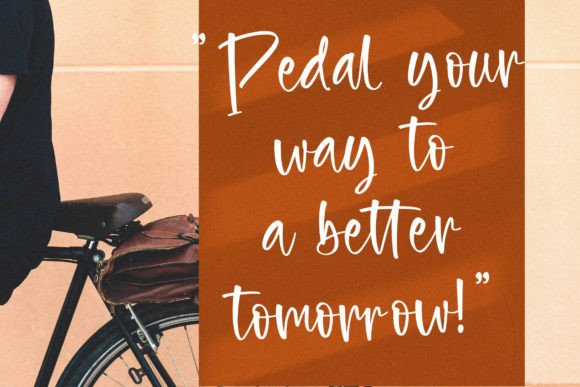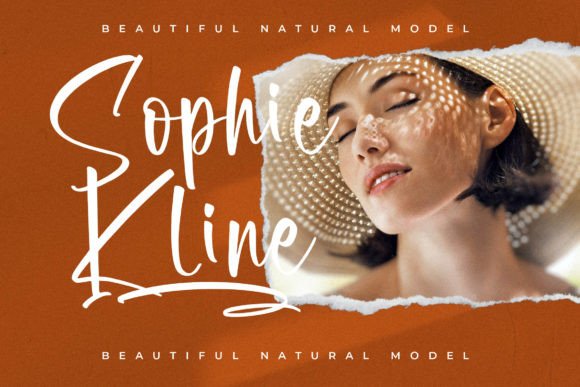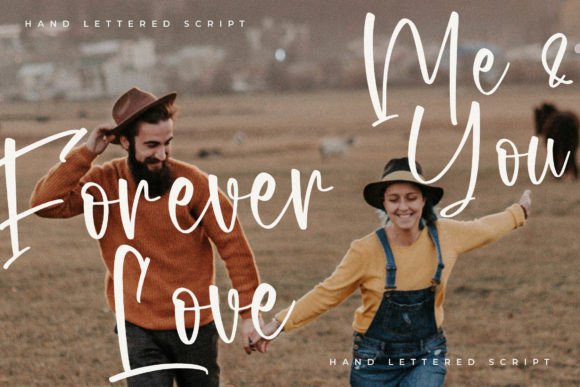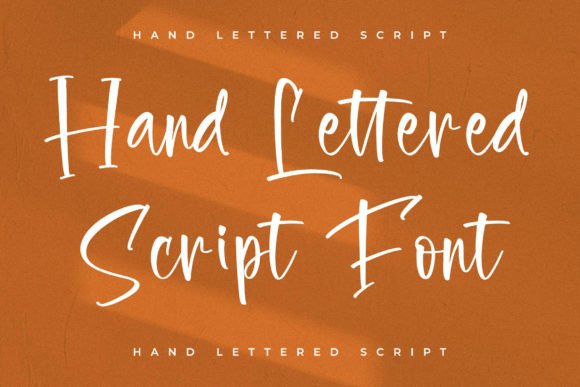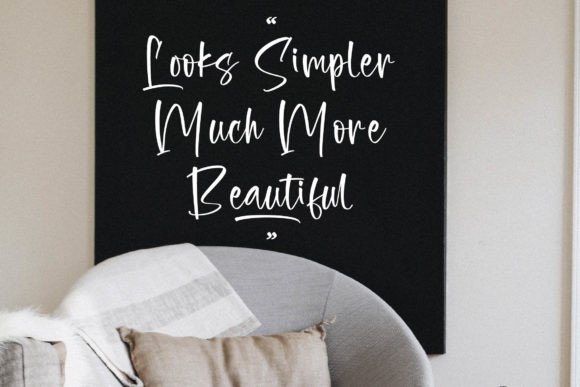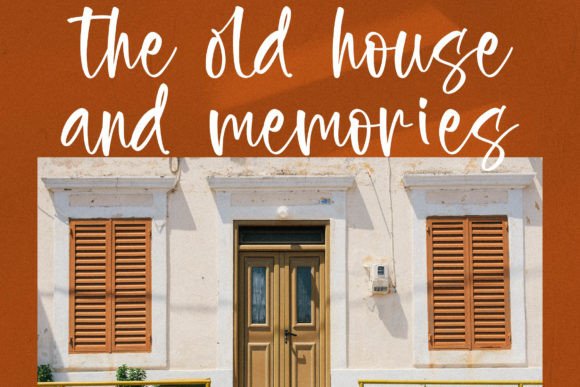
Introduction to Frenchy Glover Font
Frenchy Glover is an exquisite handwritten font, masterfully designed to become a true favorite.
Key Features of Frenchy Glover Font
Why Choose Frenchy Glover Font?
Frenchy Glover Font offers exceptional quality and versatility, making it a valuable addition to your design toolkit. Whether you’re creating for personal projects or commercial use, Frenchy Glover Font delivers professional results.